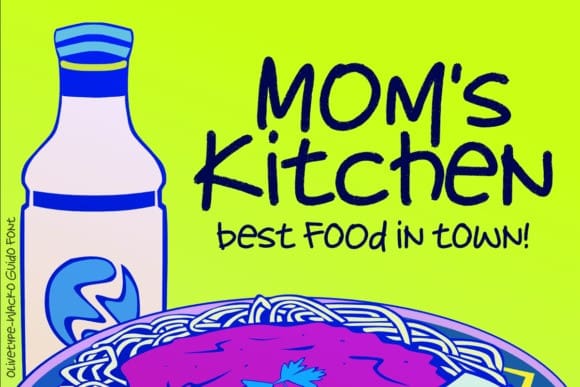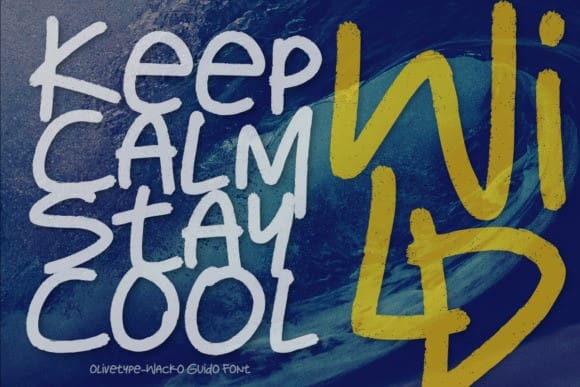
Wacko Guido Font
Wacko Guido Font, the quirky and charismatic handwritten brush font bound to turn heads. With its unique style, this font is perfect for creating eye-catching posters that captivate your audience at first glance. Its playful yet professional design allows it to seamlessly blend into any branding project, giving your company a distinctive and memorable touch.